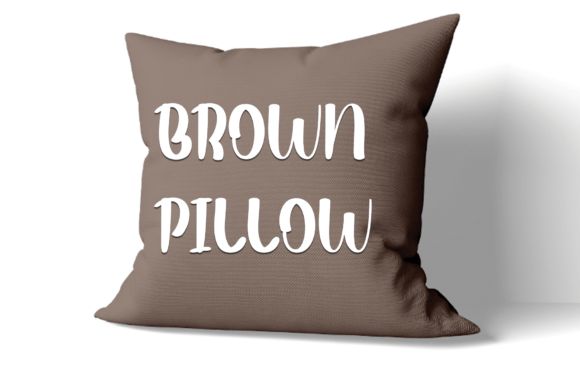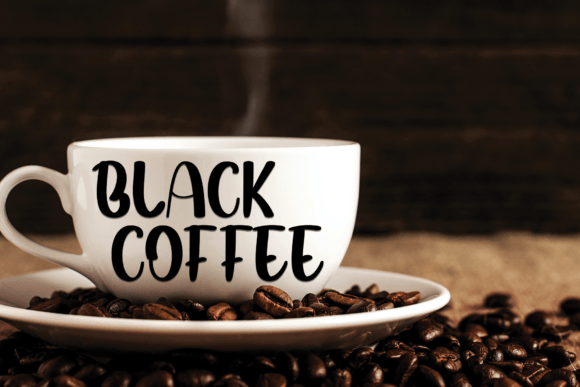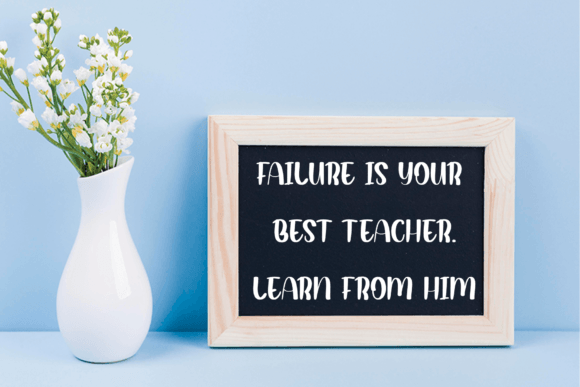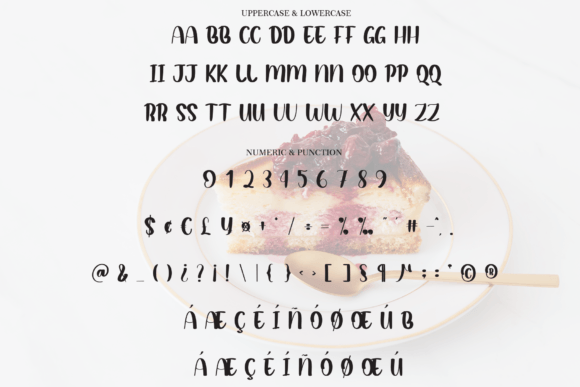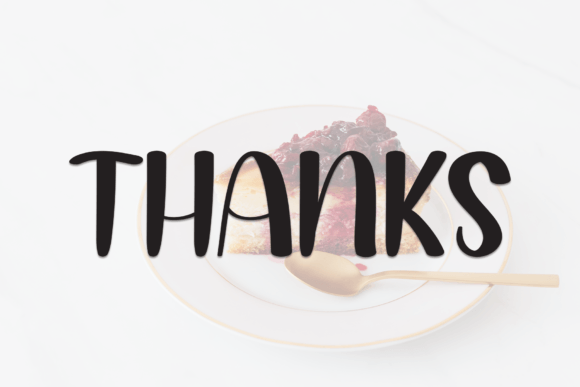
The Sweet Delight of Bluberry Cheesecake Font
I’ll never forget the design project that led me to discover the charming Bluberry Cheesecake font. I was working on a wedding invitation suite for a client who wanted something fresh, casual, and utterly romantic. As I scrolled through font after font, nothing seemed quite right – until I stumbled upon Bluberry Cheesecake. Its sweet, handwritten charm instantly captured the essence of the couple’s special day, and I knew I’d found the perfect fit.
So, what makes Bluberry Cheesecake so special? Let’s dive into the details!
- ✨ Fresh and casual vibe that’s perfect for wedding invitations, cards, and other designs that need a lovely touch
- ✅ Sweet and friendly handwritten style that feels approachable and inviting
- ✅ Easy to read, even in smaller sizes – a major plus for designs with lots of text
- ✨ Works beautifully in both digital and print formats
While Bluberry Cheesecake is an amazing font, it’s not without its quirks. Here are a few things to keep in mind:
- ⚠️ Some letters may appear a tad inconsistent in terms of sizing or spacing – but this actually adds to its handmade charm!
- 🤔 Not ideal for very formal or corporate designs, as it leans more towards the whimsical side
- Experiment with OpenType features like ligatures and stylistic alternates to add visual interest
Bluberry Cheesecake was crafted with love by a talented designer who wanted to create a font that captures the essence of warmth and approachability. Inspired by the sweet treats that bring people together, this font is designed to make your designs feel more personal and inviting.
A: Bluberry Cheesecake is perfect for wedding invitations, cards, and any design project that needs a fresh, casual touch.
A: Yes, Bluberry Cheesecake supports OpenType features like ligatures, stylistic alternates, and glyphs, making it a versatile font for creative projects.